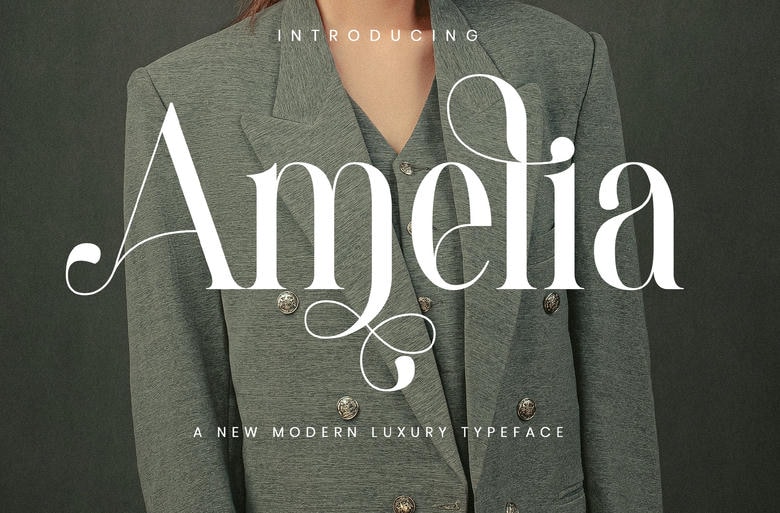
Amelia Serif Font
Amelia is a fashionable serif typeface that was based on the iconic minimalist logo. It is ideal in designing templates, brochures, videos, advertising branding, logos and so on.